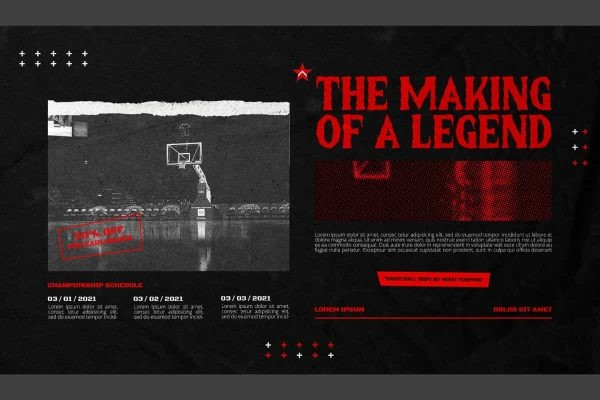
The Crimes Font
The Crimes Font is a horror and bold black metal font. This font is decorated with fine feather accents on each side of the letters, giving it a strong appearance. It would be perfect for your design, such as custom design, brand image, fashion, invitation, label, menu, poster, signage, stationery, website page, and more!
The Crimes Font includes a full set of ALL CAPS for Uppercase and Lowercase Letters, Numerals, and large range of Punctuation. This mysterious font will be suitable for various industries, such as event or festival, fashion, game, movie, photography, printing, publishing, etc.